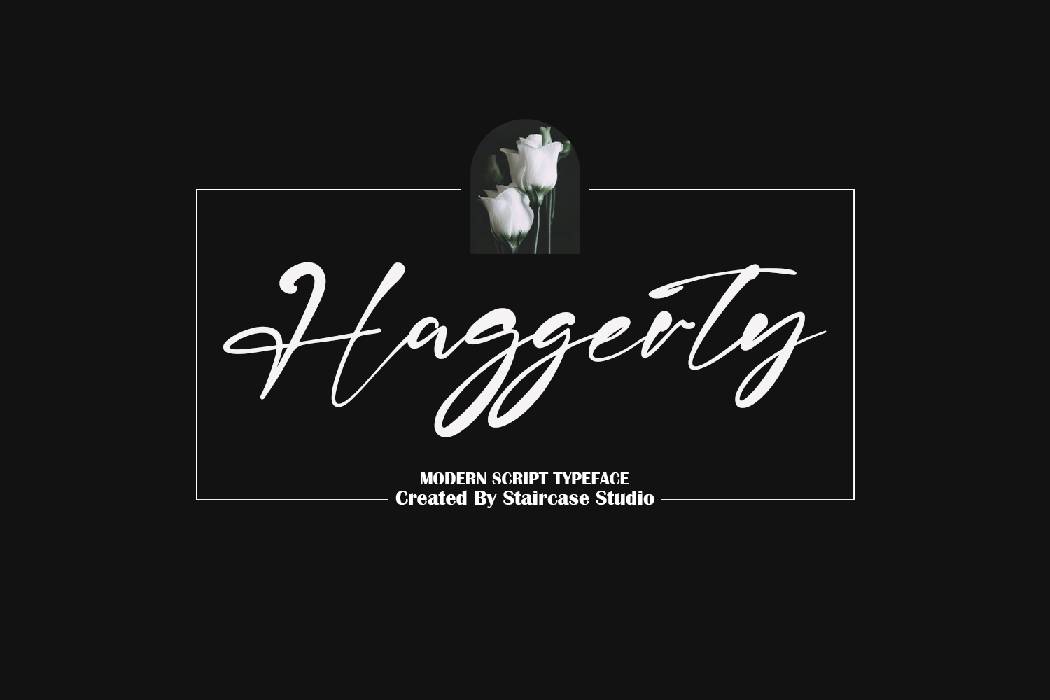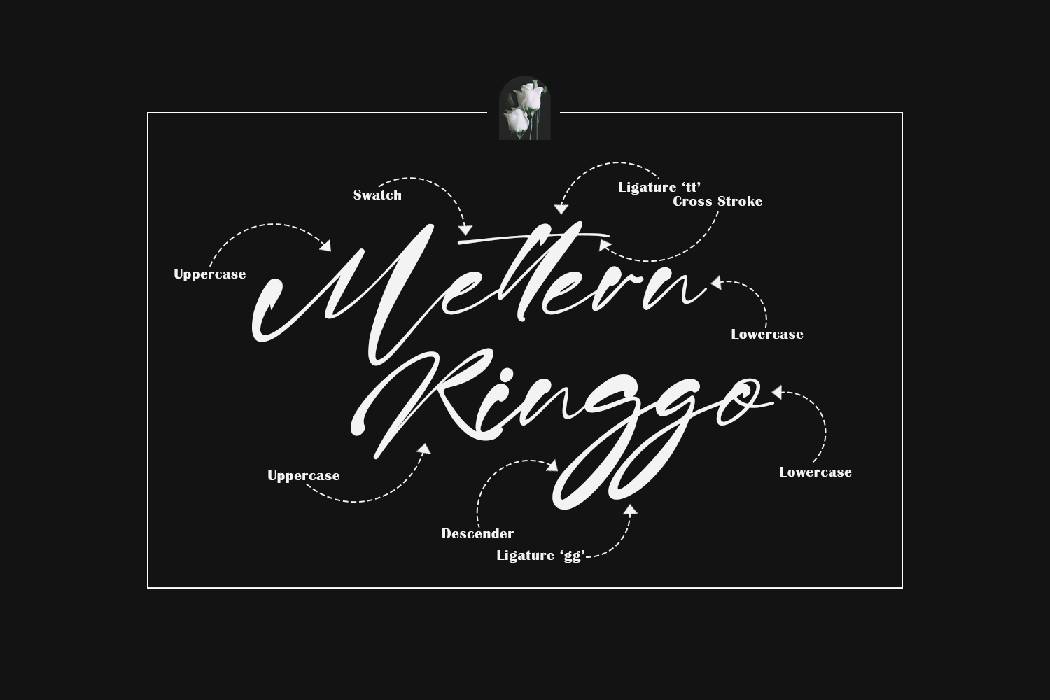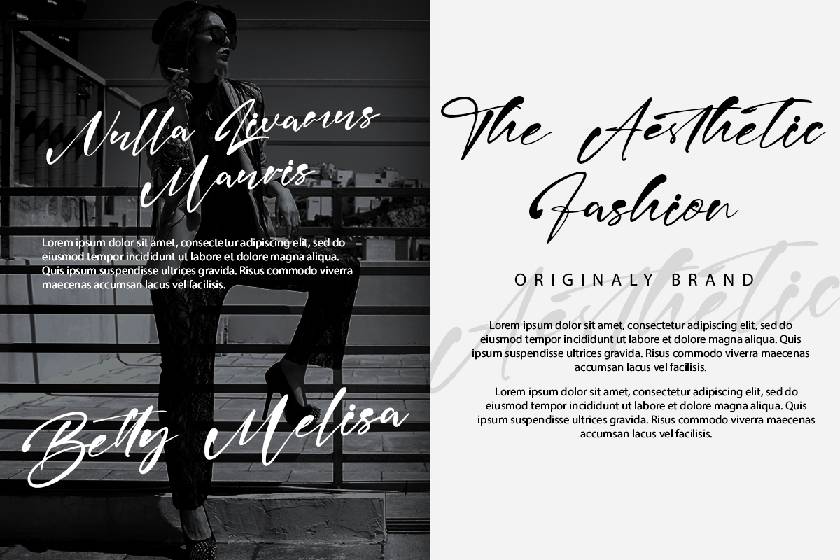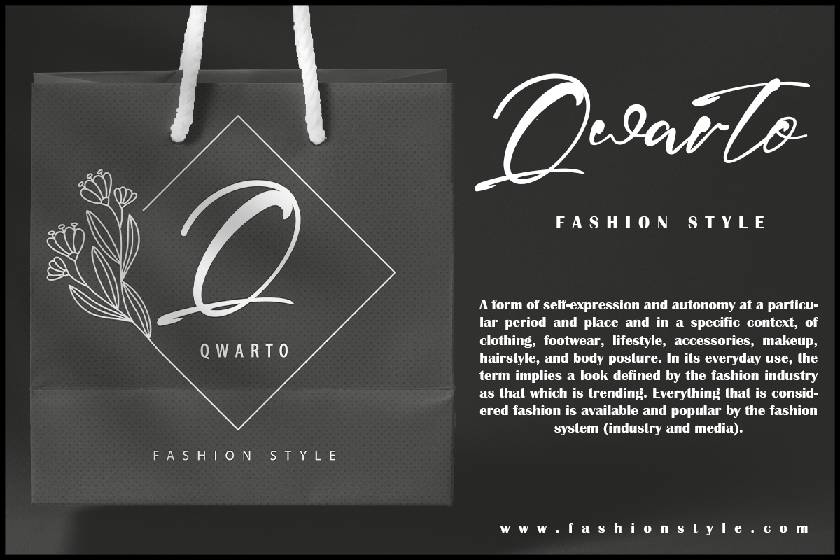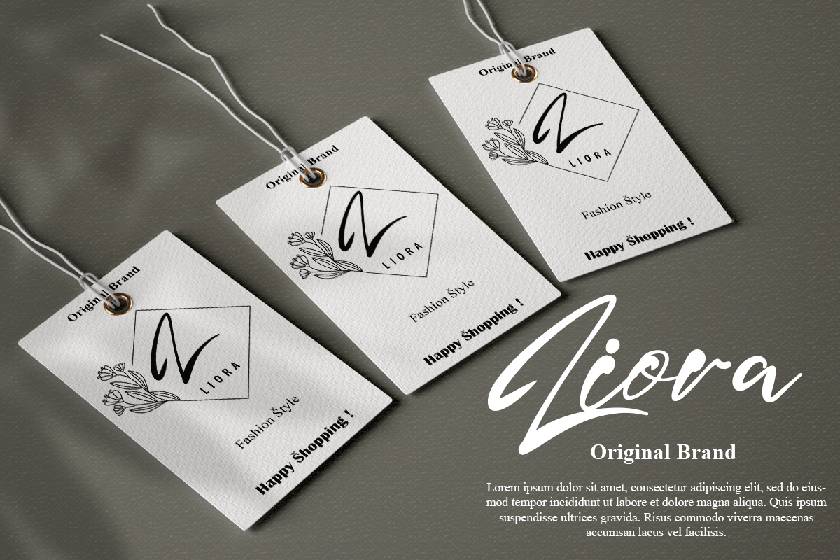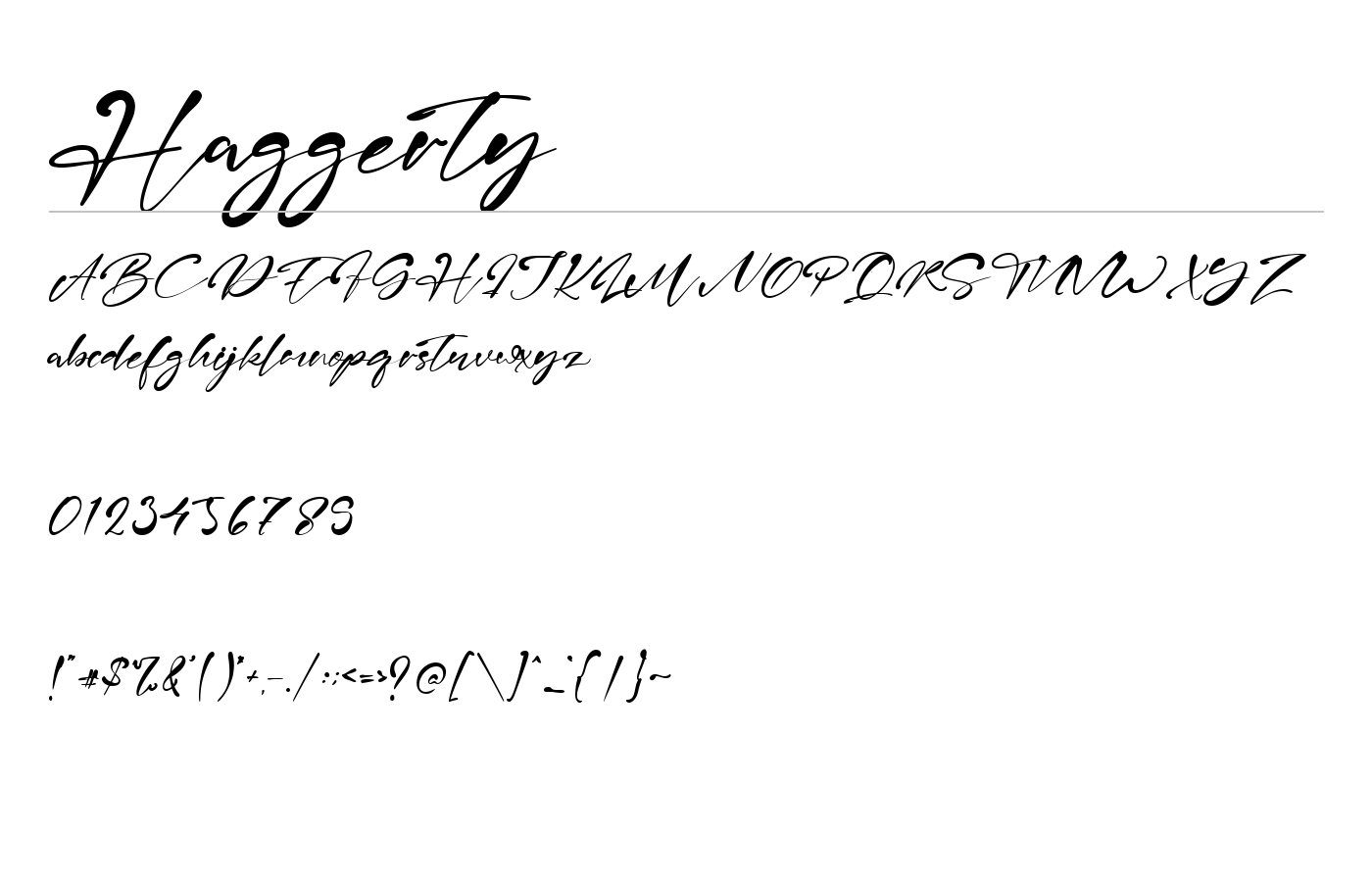
Haggerty is an elegant, flowing script font with a natural, handwritten feel characterized by its smooth, varied stroke weights and stylish swashes. It features a lively mix of uppercase and lowercase letters with distinct, spirited curves that convey sophistication and charm, making it perfect for invitations, branding, and decorative headlines. The font’s graceful personality adds a touch of luxury and creativity, fitting well in projects aiming for a refined yet approachable look.
Haggerty Font
About Haggerty Font
| Font family | Haggerty Font |
| Designer | Staircase Studio |